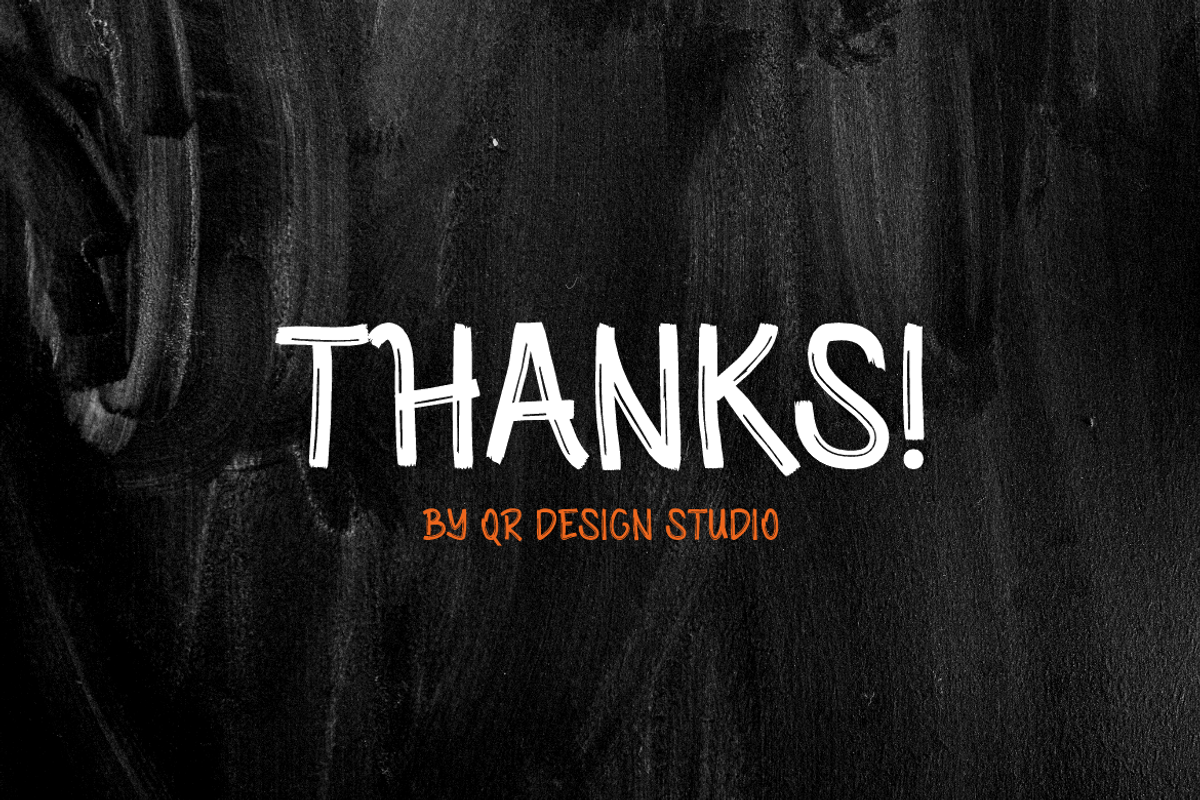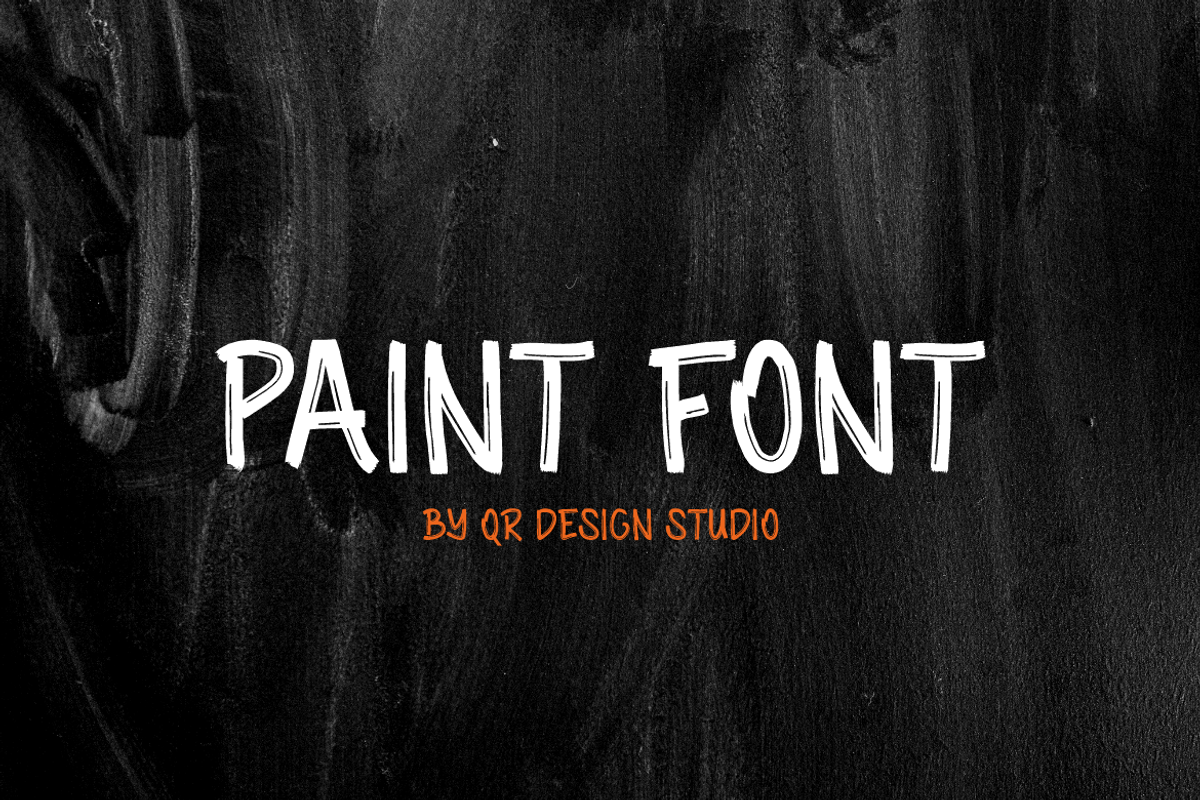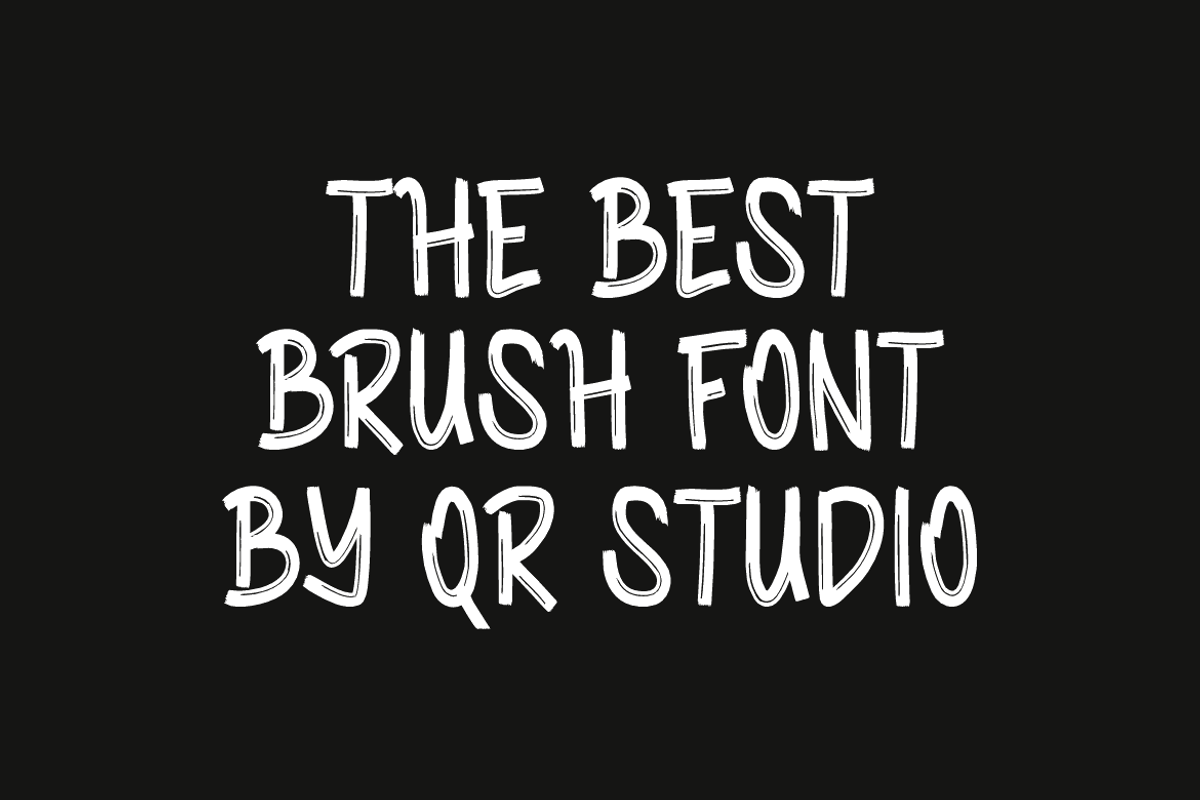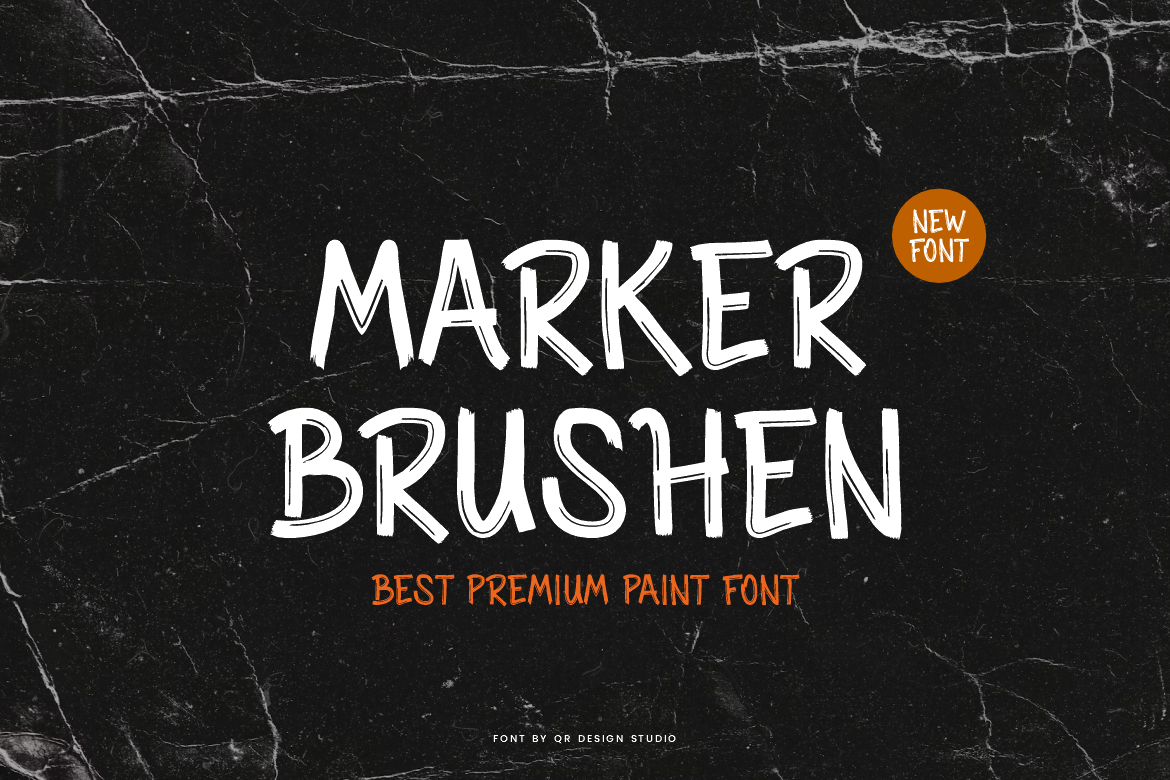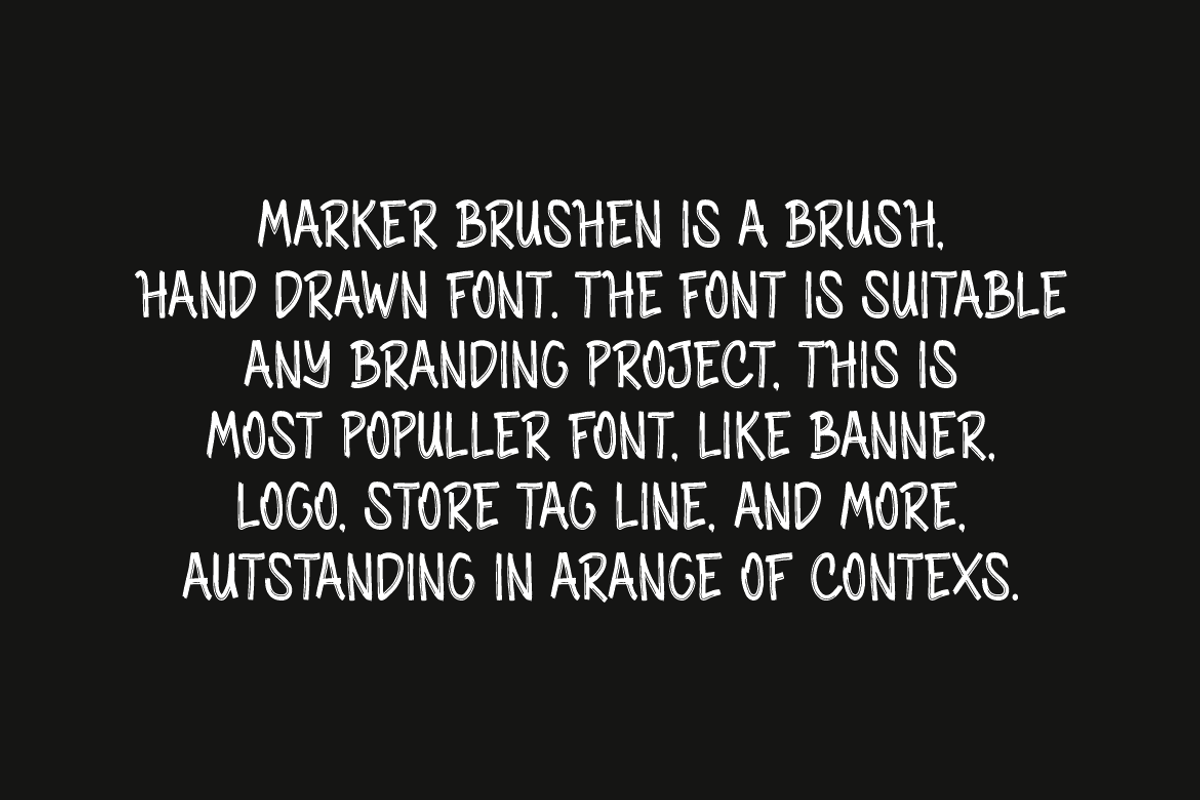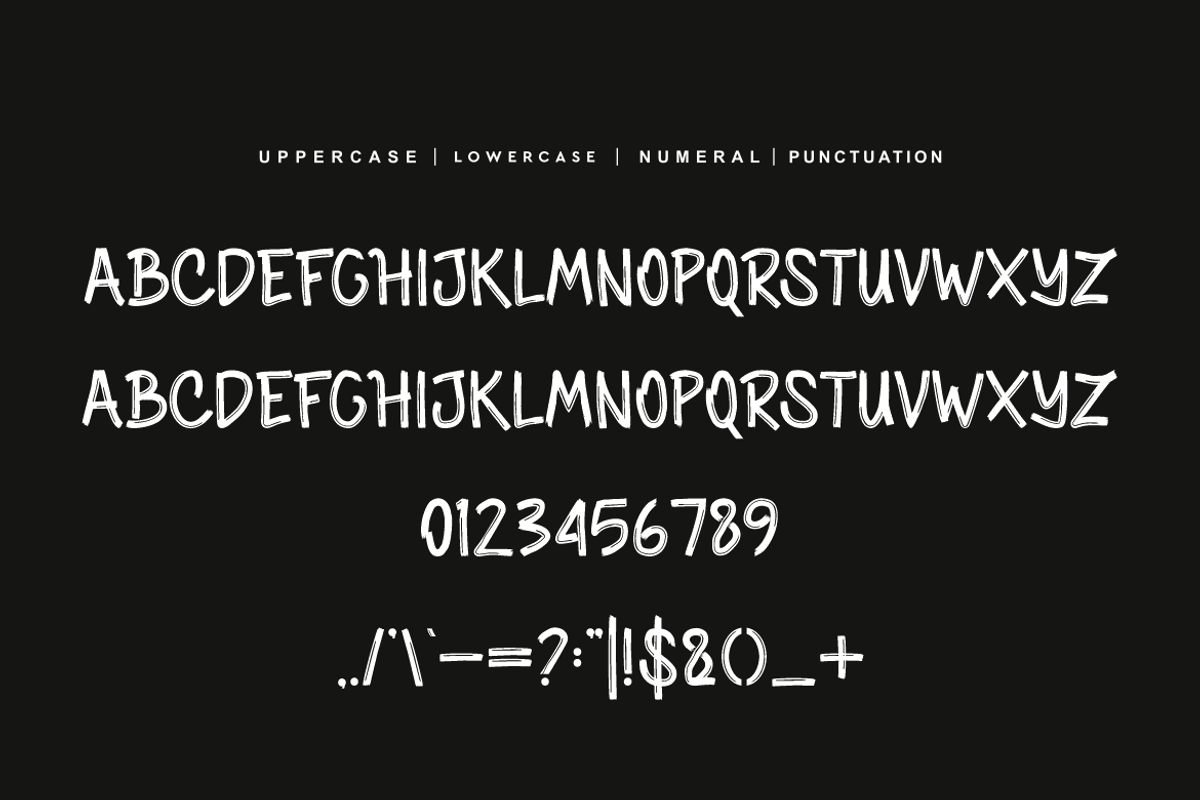
Marker Brushen - Premium Paint Font
Marker Brushen Font is a hand drawn and authentic display font. The font is suitable for any branding project like poster, logo, sport, and many more. Outstanding in a wide range of contexts.